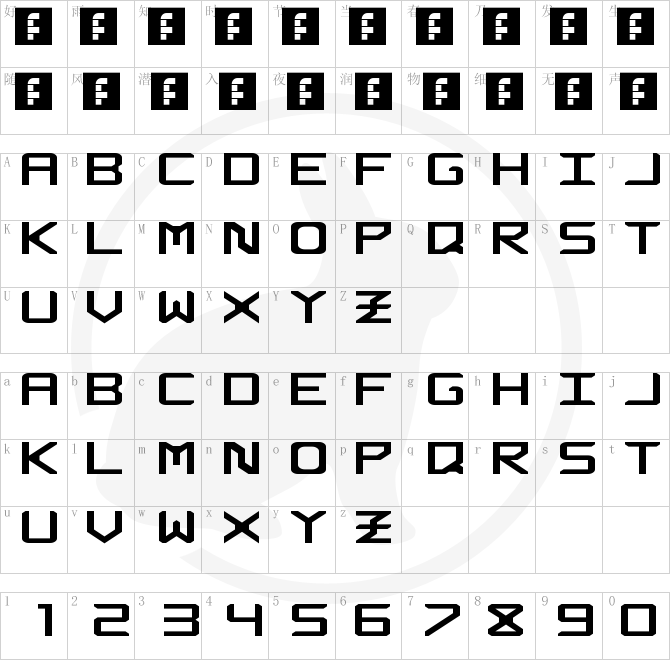
- Font Name:Rabbid Highway Sign Extended
Rabbid-Highway-Sign-Extended-Regular.ttf is a very beautiful artistic font, Rabbid-Highway-Sign-Extended-Regular.ttf is widely used in the design and printing of various books and pictures,Rabbid-Highway-Sign-Extended-Regular.ttf has a strong visual impact,Rabbid-Highway-Sign-Extended-Regular.ttf is a commonly used font in newspapers, magazines and books, and is used in posters, e-commerce Poster design, store design, logo design, font design and other fields.Rabbid-Highway-Sign-Extended-Regular.